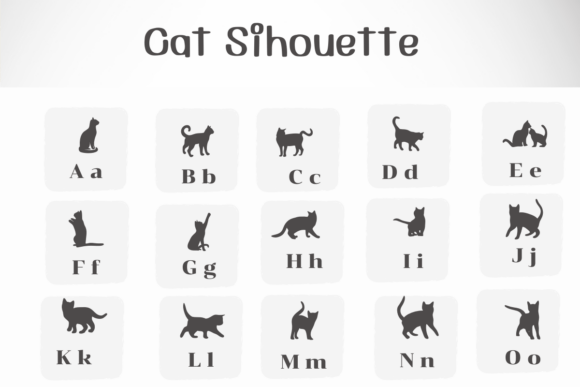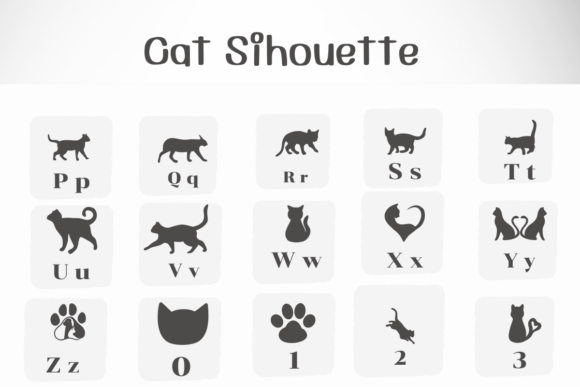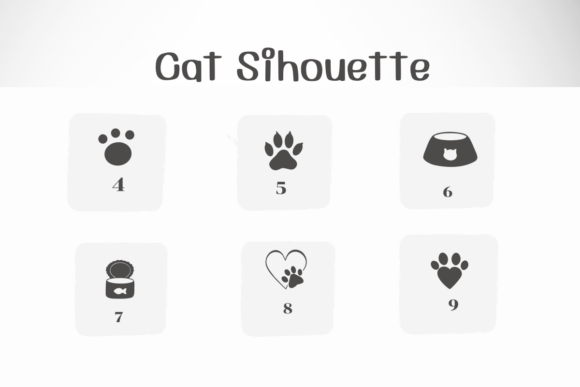
Cat Sihouette Font
Cat Sihouette is a dingbats font with theme with a sketch style. This font can enhance your creative projects such as wedding invitations, DIY, crafts, decorations, logos, and many other creative ideas.